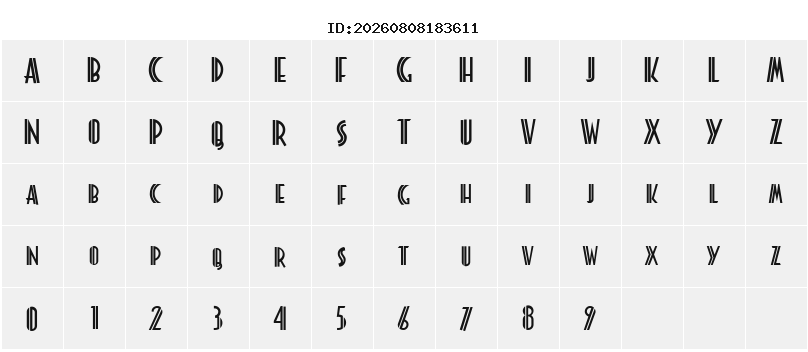
• Font Name: Platonick NF
• Designer: Nick Curtis
• Manufacturer: Nick's Fonts
About Platonick NF.ttf
Platonick NF.ttf is a modern, elegant sans-serif font designed for ultimate readability and visual harmony. Perfect for branding, headlines, web design, and print materials.